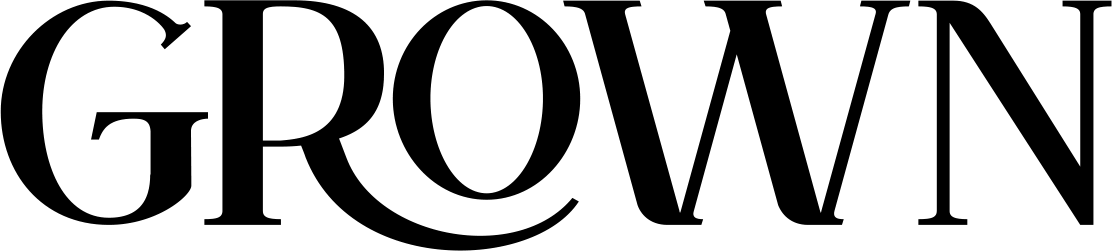
Grown Font
Grown is a serif font that does not support numbers, this is a majestic font for professional graphic designers and you can use it as a game-changer in designing posters, logos, and business cards. This font multiplies the efficiency of your content by conveying a sense of authenticity, credibility, and respect to the audience.
GROWN is a modern and clean display (Serif) font. Create from our talented font designer. The design of typeface will make your design more beautiful and inspiring. This font will suitable for any project, like branding, print template, logo and etc.What’s included:
• Alternates
• Ligatures
• Multilingual Supports